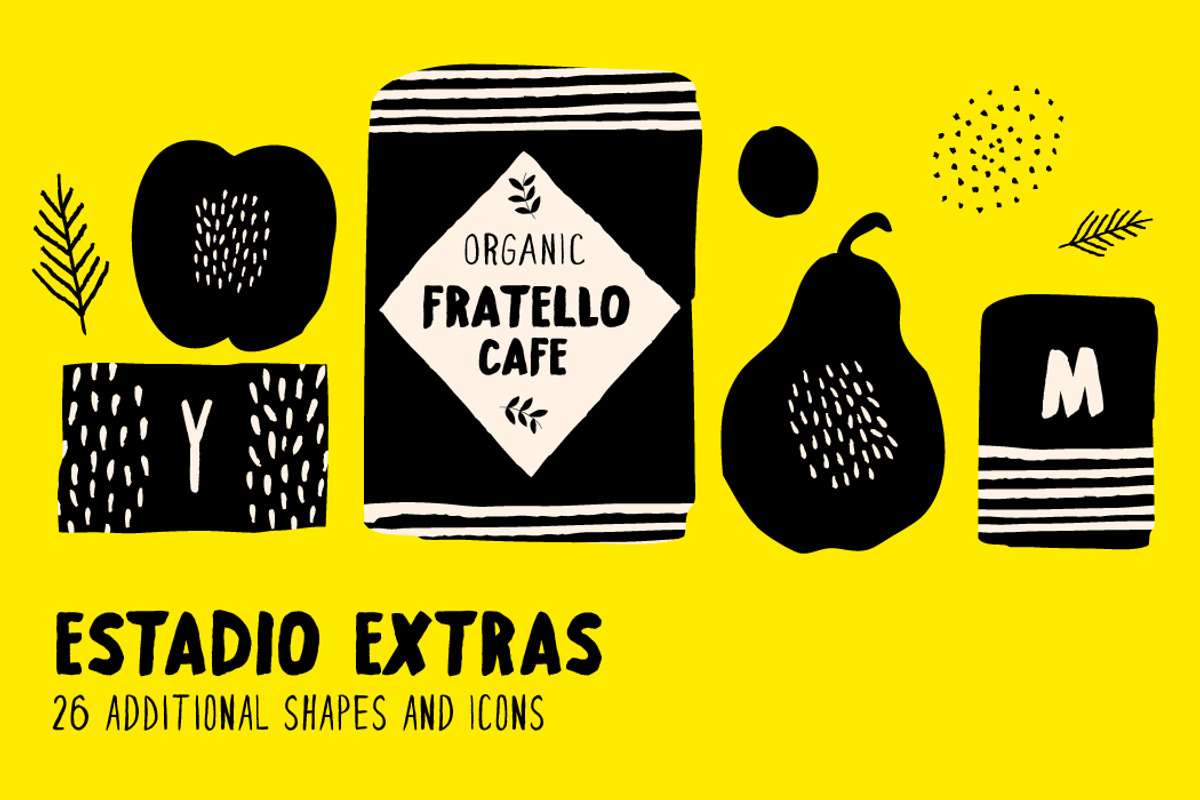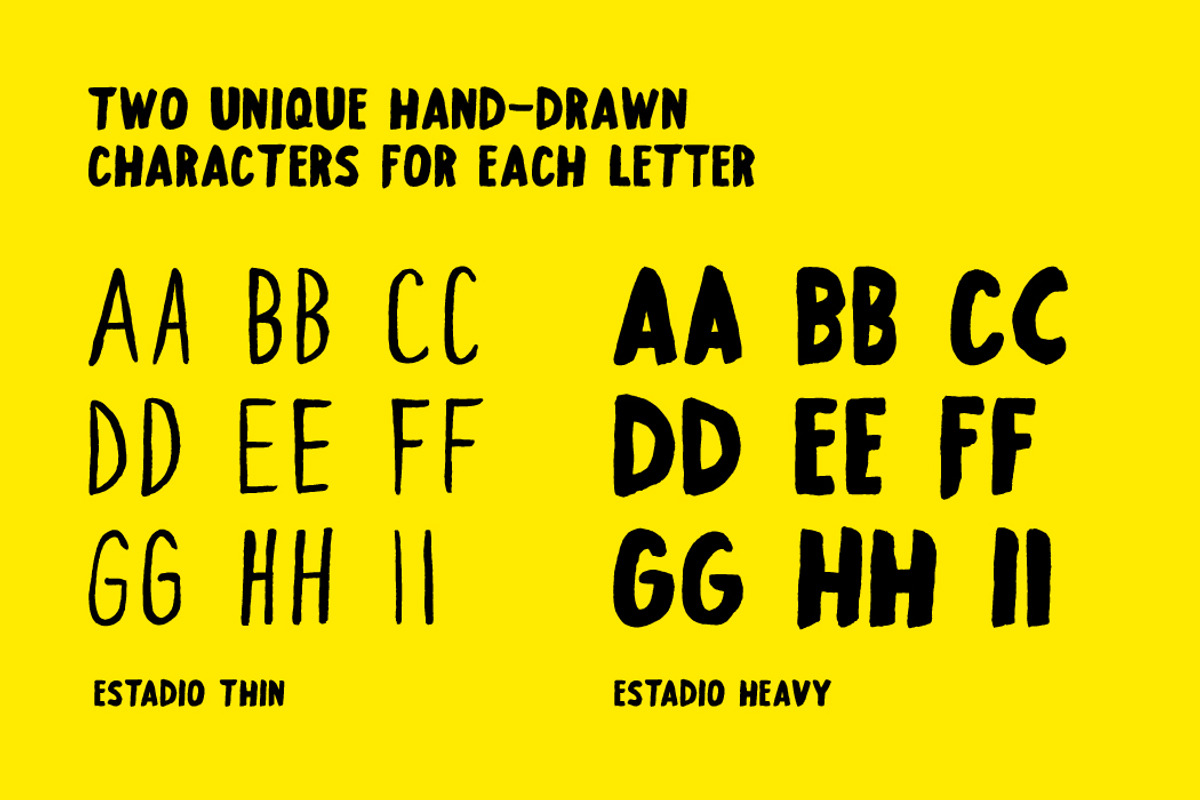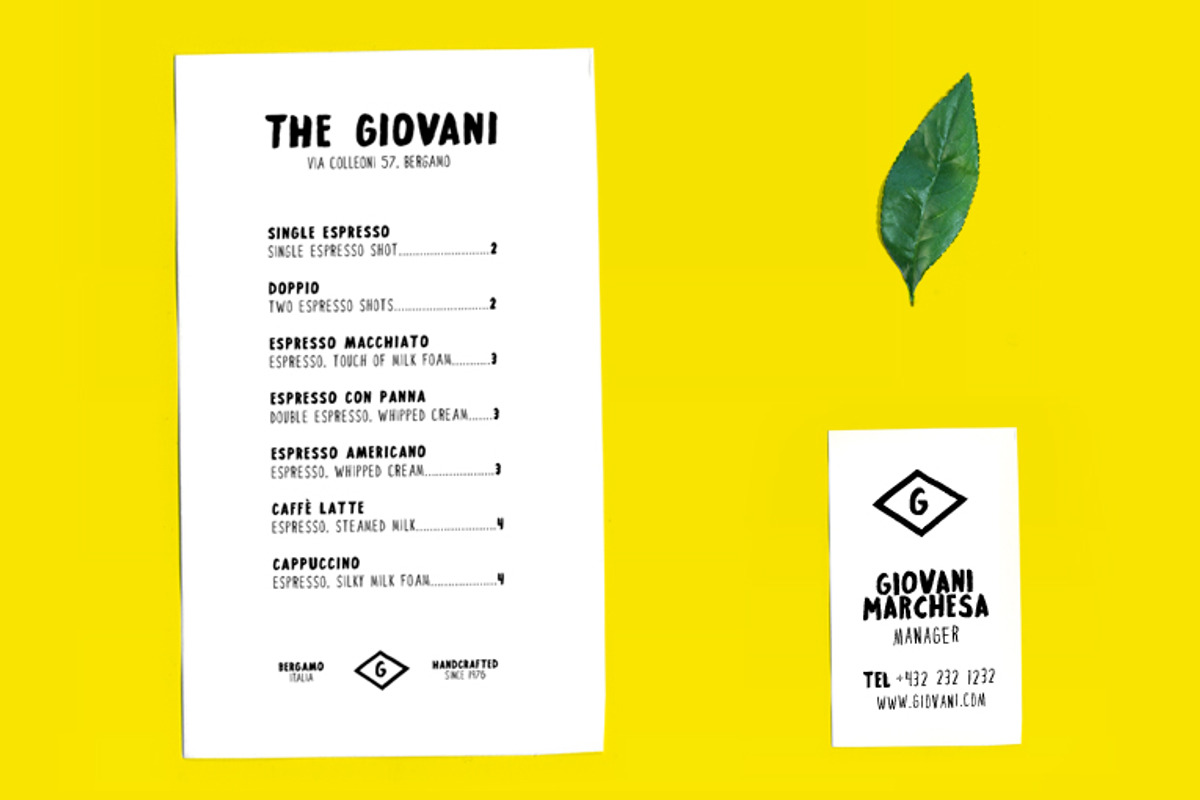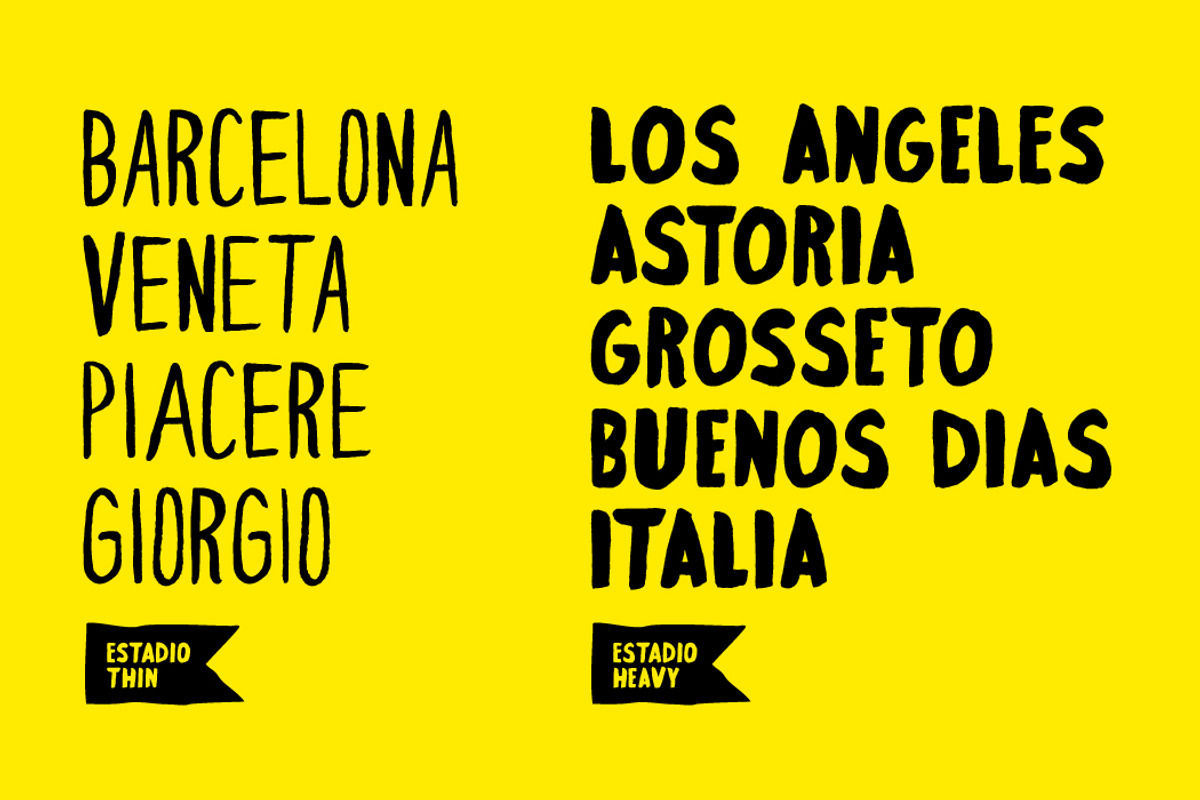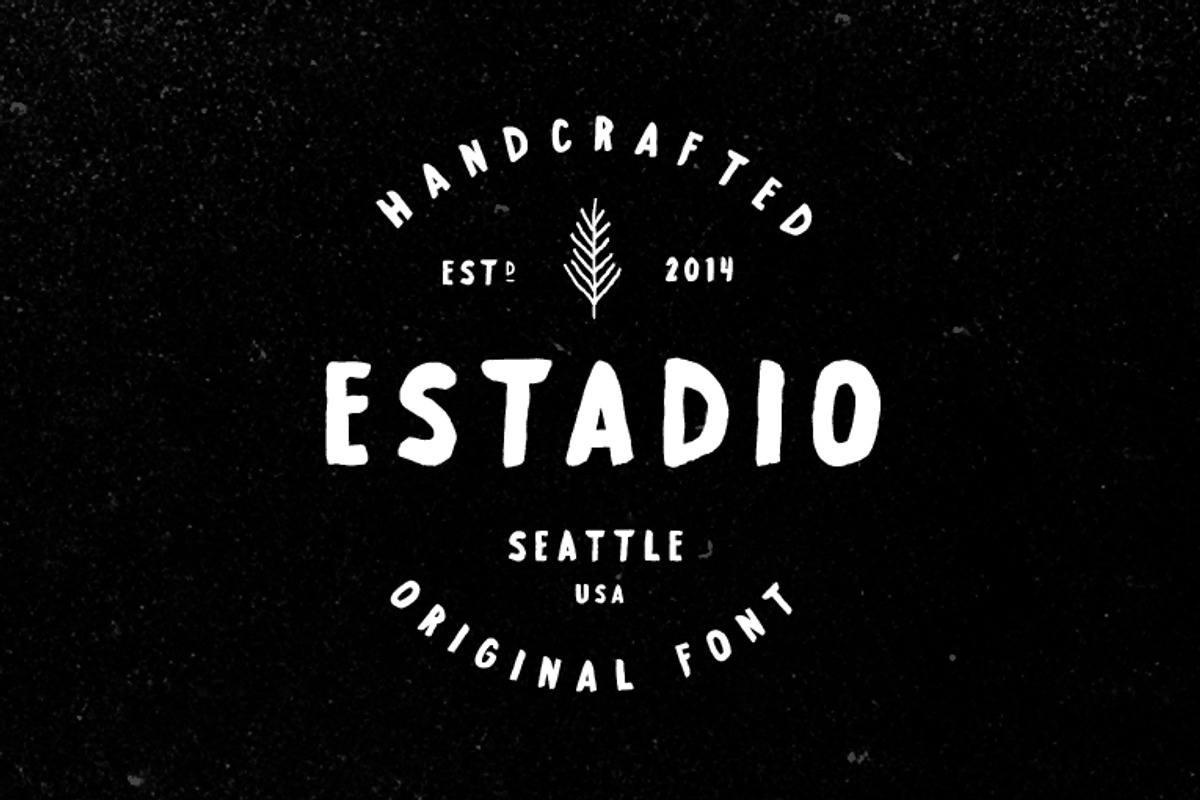
Estadio Font Family
Estadio Font Family by Ballasiotes is a font selected for branding, posters, packaging, typography.
Why Estadio Font Family is worth a look
Estadio Font Family by Ballasiotes fits naturally into Branding, posters, packaging, typography.